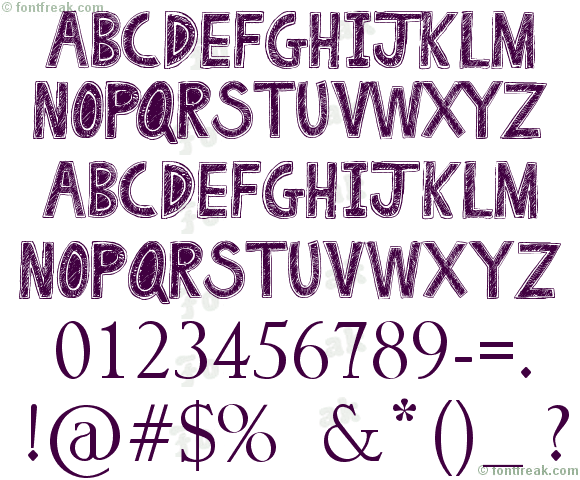
Drawing Pad
Drawing Pad is a unique display font crafted by Jonathan S. Harris, encapsulating a playful and artistic spirit that appeals to a wide range of creative projects. This font is characterized by its handwritten style, featuring uneven strokes that mimic the look of hand-drawn letters. The varying stroke weight adds a dynamic quality, making each character stand out with its own personality. The letters are loosely spaced, contributing to a free-spirited aesthetic that evokes the sensation of sketching on a blank canvas.
Ideal for a variety of applications, the Drawing Pad font excels in creating inviting wedding invitations, eye-catching posters for art exhibitions, and playful branding materials for creative businesses. Its whimsical nature also makes it well-suited for children's books or educational materials, where engaging visuals are essential. Small business owners and graphic designers will find this font particularly useful for marketing collateral that aims to convey a sense of creativity and approachability.
The target audience for the Drawing Pad font includes graphic designers, content creators, and small business owners looking to add a unique touch to their projects. Its versatility allows it to be used in both digital and print formats, making it a valuable addition to any designer's toolkit.
What sets the Drawing Pad font apart is its charming, hand-drawn appearance that resonates with audiences seeking authenticity and creativity. This font stands out not only for its visual appeal but also for its ability to evoke feelings of nostalgia and whimsy. For those interested, the Drawing Pad font free download is available, making it accessible for anyone looking to enhance their design projects with a touch of artistic flair.